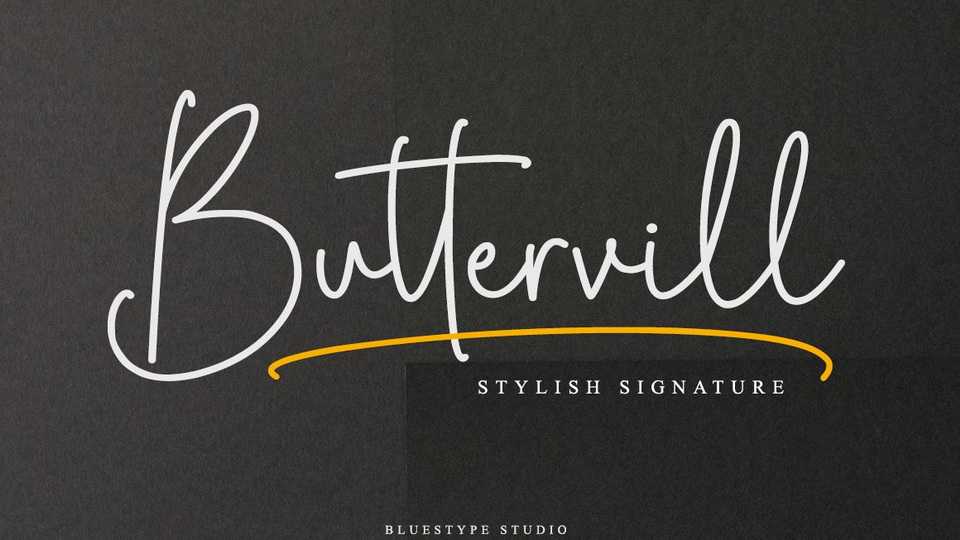
Download Buttervill font, a stunning signature typeface with a cool twist. and modern simplicity. Buttervill font is suitable for use on business cards, weddings, t-shirt designs, logos, magazines, quotes, fashion, watermarks, invitations, signatures.